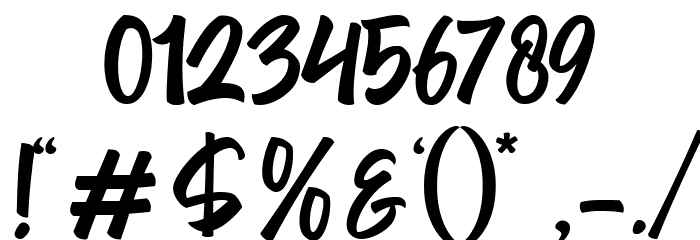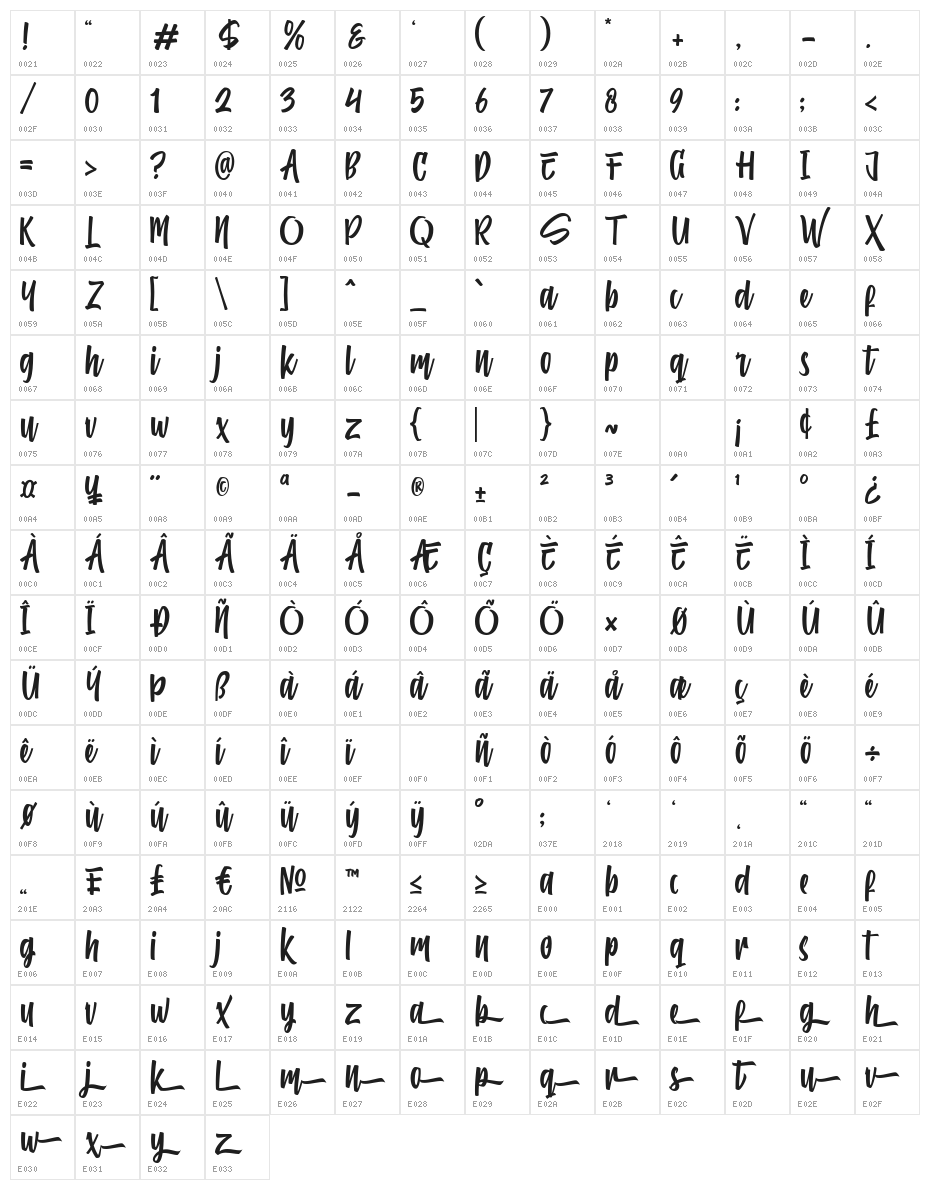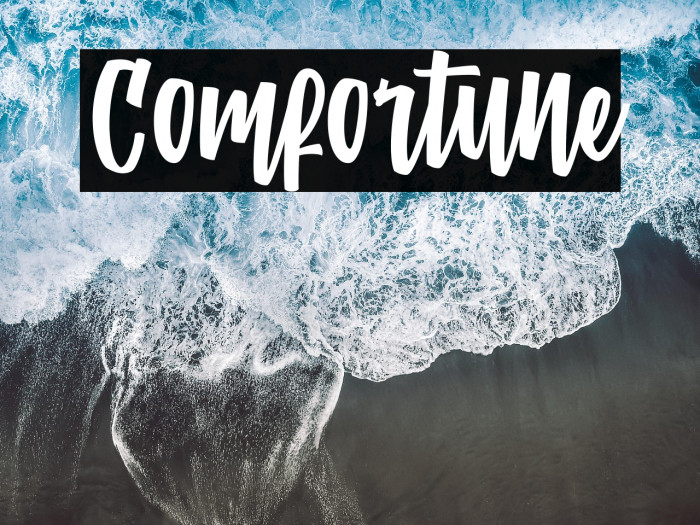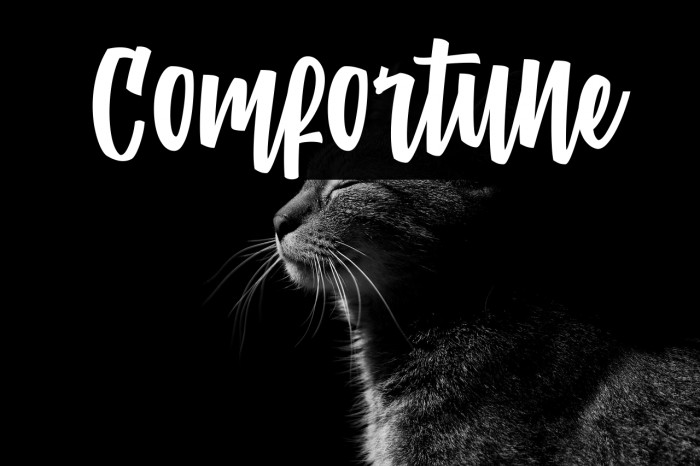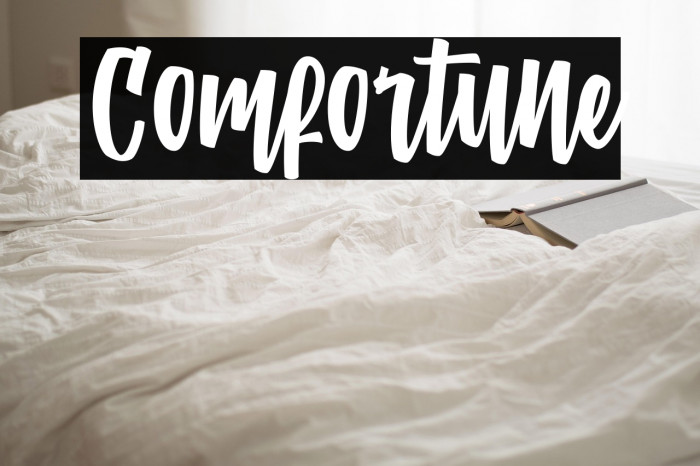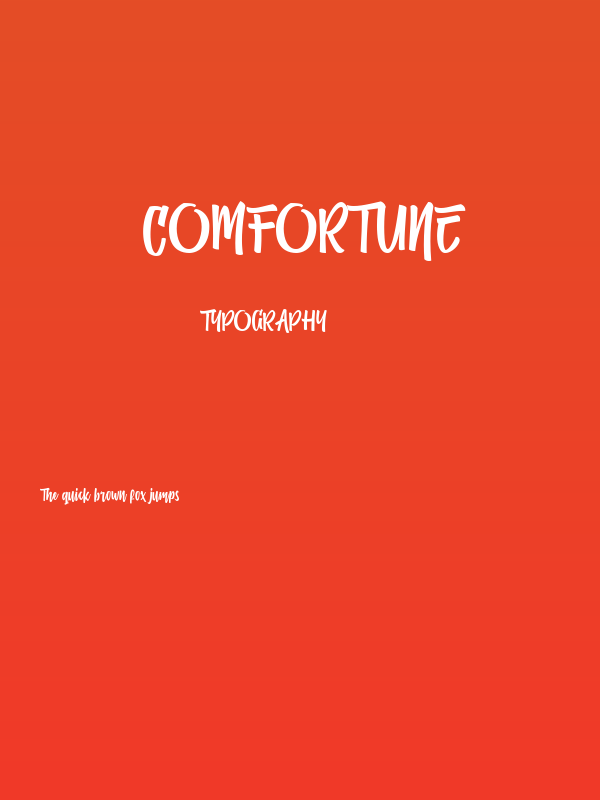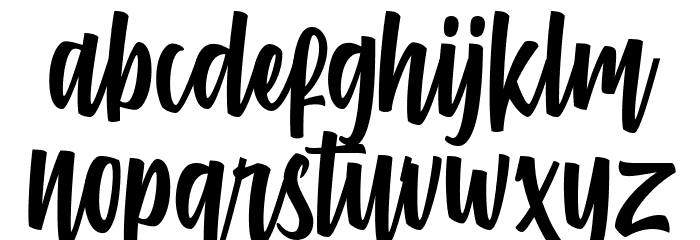
Comfortune Font
Comfortune Description
This font exudes a playful and energetic vibe, characterized by its bold and dynamic strokes. The letters are crafted with a brush-like appearance, giving them a handwritten feel that is both casual and artistic. The uppercase and lowercase letters maintain a consistent style, with smooth curves and a slightly slanted orientation that adds to the font's lively nature. The numbers and special characters are designed to match the overall aesthetic, ensuring a cohesive look across all elements. This font is perfect for projects that require a touch of creativity and informality, making it ideal for artistic and expressive designs.
Proposed ProjectsIdeal for greeting cards, posters, branding materials, and social media graphics where a creative and informal touch is desired.